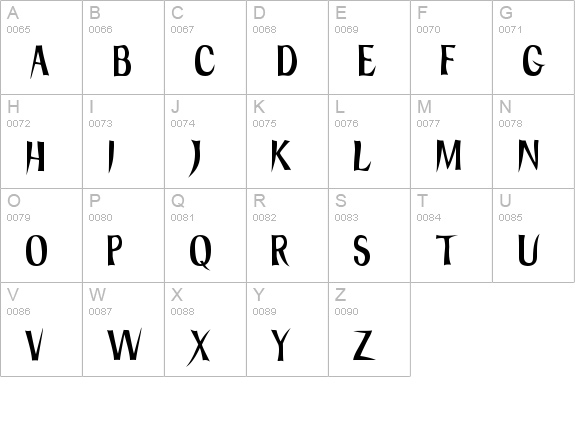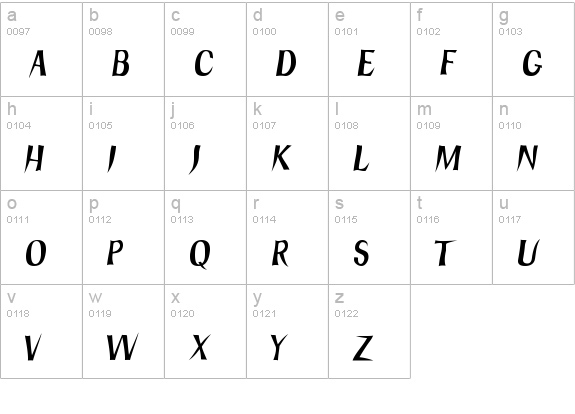
Hydra Font Details
Introducing Hydra font – a stunning display typeface that exudes elegance and modernity with its sleek lines and unique design. The Hydra font is a versatile choice for a wide range of projects, from branding to editorial design, thanks to its bold and eye-catching appearance. What sets Hydra font apart is its seamless blending of contemporary design elements with a classic touch, making it a perfect choice for both digital and print applications. Whether you're designing a logo, website, poster, or any other creative project, the Hydra font is sure to make a bold statement. The best part? Hydra font is available for free download exclusively at FontsMarket.com. So don't wait any longer – elevate your designs with the captivating Hydra font today!